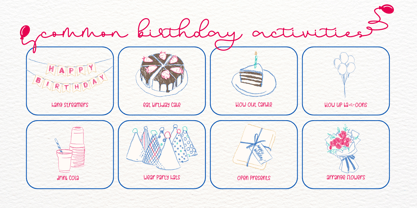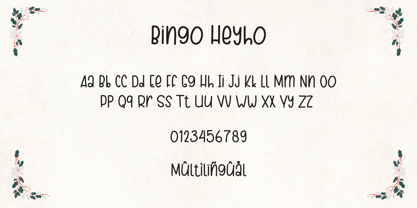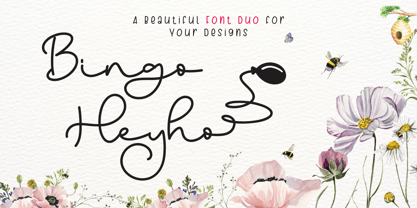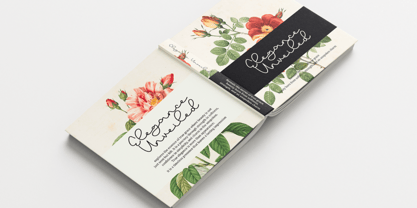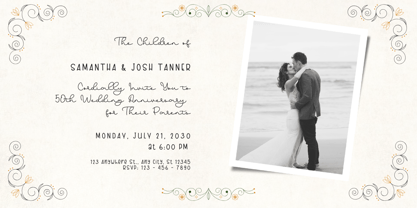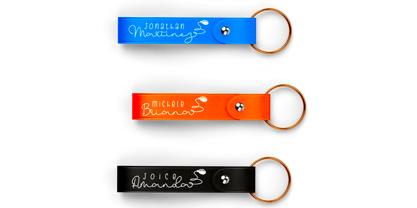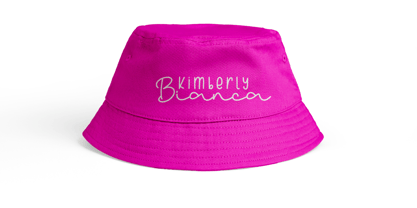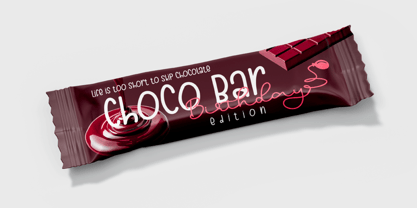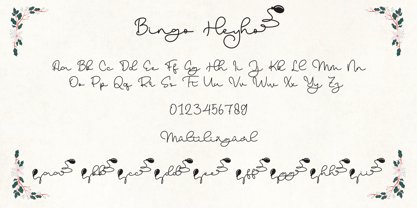
Bingo Heyho Mono
by Beary
The Bingo Heyho Mono Font Family was designed by Dian Haniffan Hadi and published by Beary. Bingo Heyho Mono contains 2 styles and family package options.
Introducing the Bingo Heyho Font Duo – a perfect pairing of playful monoline script and unique upright handwritten fonts. These fonts have been carefully designed to complement each other, making it easy for you to create eye-catching branding, invitations, or creative print projects.
Bingo Heyho Script is a lively monoline script font featuring numerous alternate characters adorned with charming balloon illustrations, adding a whimsical and fun touch to your designs.
Bingo Heyho Regular is a uniquely upright handwritten font with a natural yet distinctive look, perfect for adding personality and charm to any creative project.
These fonts can be used as strong standalone fonts with complete uppercase and lowercase sets or seamlessly combined for a dynamic and visually appealing font pairing that enhances your designs effortlessly.